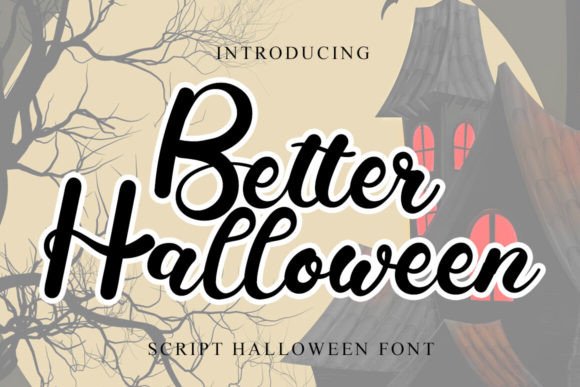
The Elusive Perfect Font: My Journey to Discovering Better Halloween
I’ll never forget the countless hours I spent scrolling through font libraries, searching for the perfect typeface for a Halloween-themed project. My client wanted something that was both spooky and sophisticated, but I was coming up empty-handed. That was until I stumbled upon the Better Halloween font. Its elegance and freshness were like a breath of fresh air, and I knew I had found the perfect fit.
A First Impression: What I Love About Better Halloween
The Better Halloween font has quickly become a staple in my design toolkit, and for good reason. Here are just a few things that I love about it:
- ✨ Elegant and refined: The font’s sophisticated design makes it perfect for formal and informal projects alike.
- ✅ Highly versatile: From business cards to party invitations, Better Halloween adapts seamlessly to any design application.
- 🎃 Perfect for Halloween-themed projects: The font’s subtle nods to the spooky season make it a great choice for designers looking to add a touch of Halloween magic to their work.
A Honest Review: The Not-So-Perfect Details
While Better Halloween is an exceptional font, it’s not without its quirks. Here are a few things to keep in mind:
- 🤔 Limited character set: While the font includes a wide range of characters, some designers may find that it’s lacking in certain special characters or glyphs.
- ⚠️ Not ideal for body text: Due to its elegant, refined design, Better Halloween is best suited for headlines and titles rather than body text.
The Story Behind Better Halloween
According to the font’s designer, Better Halloween was inspired by the classic horror movies of the 1930s and 1940s. The designer wanted to create a font that captured the elegance and sophistication of old-school Hollywood, while still evoking the spooky spirit of Halloween.
| Is Better Halloween suitable for body text? | No, Better Halloween is best suited for headlines and titles rather than body text. |